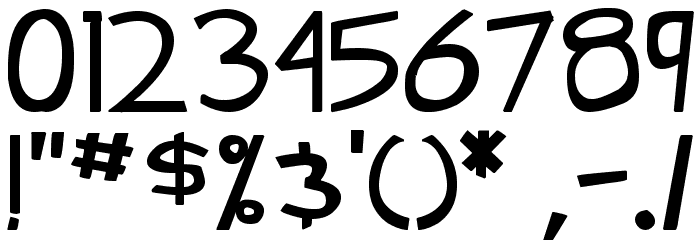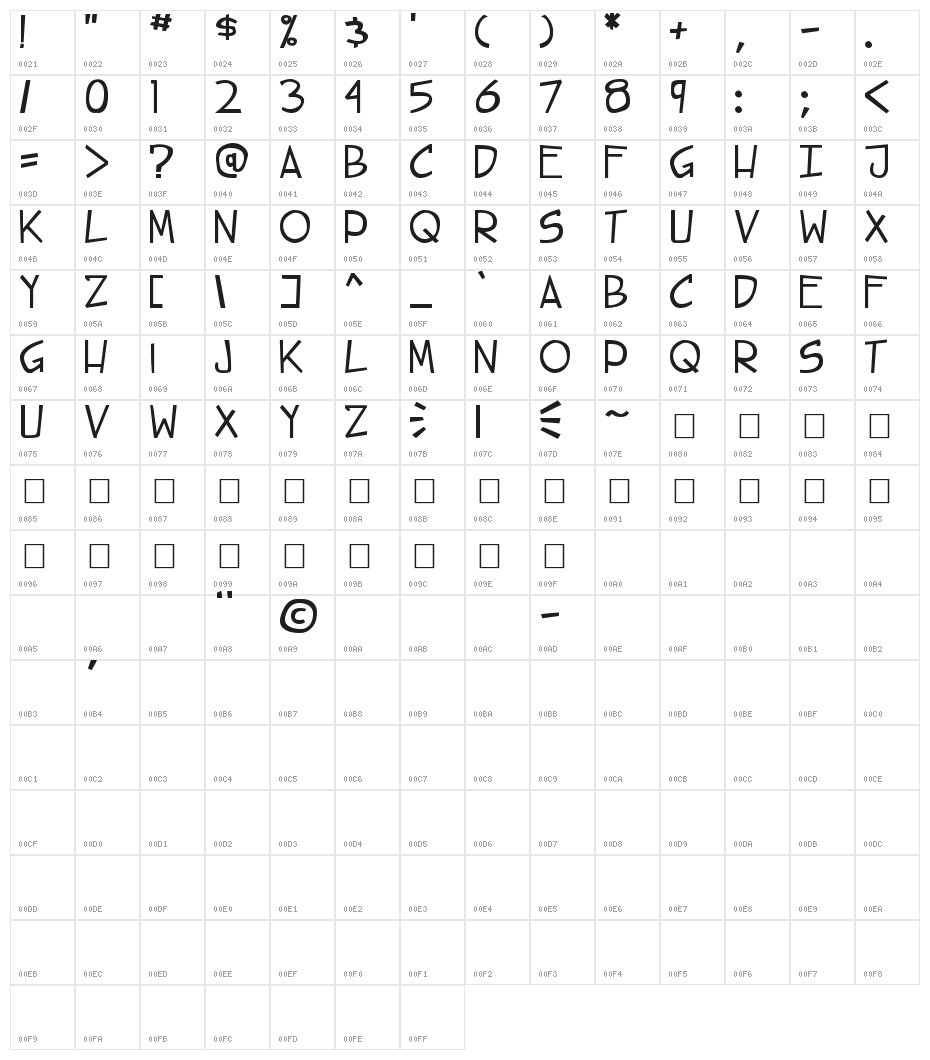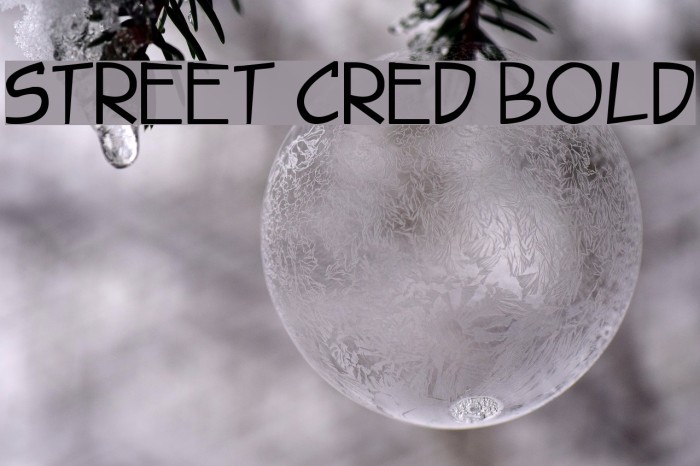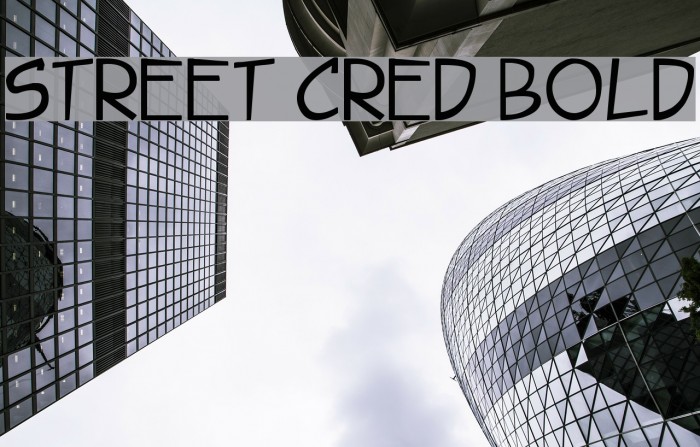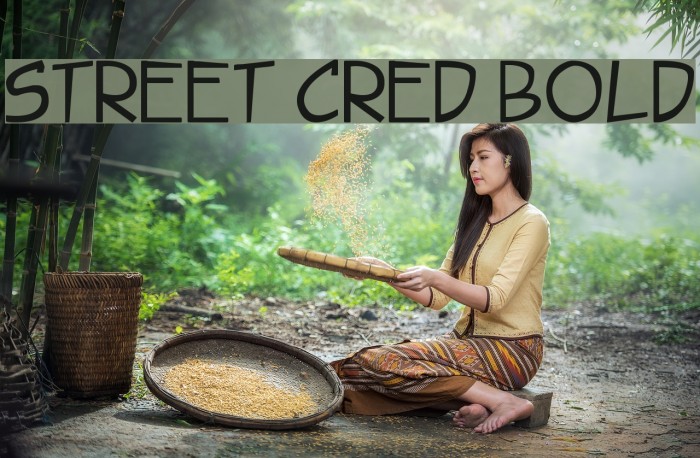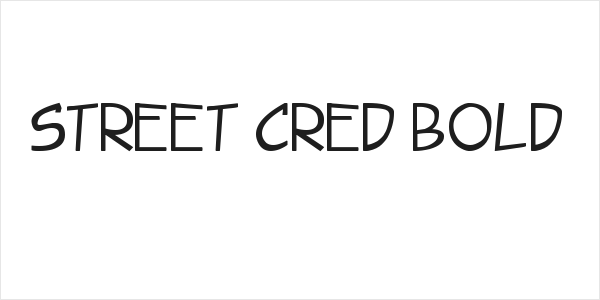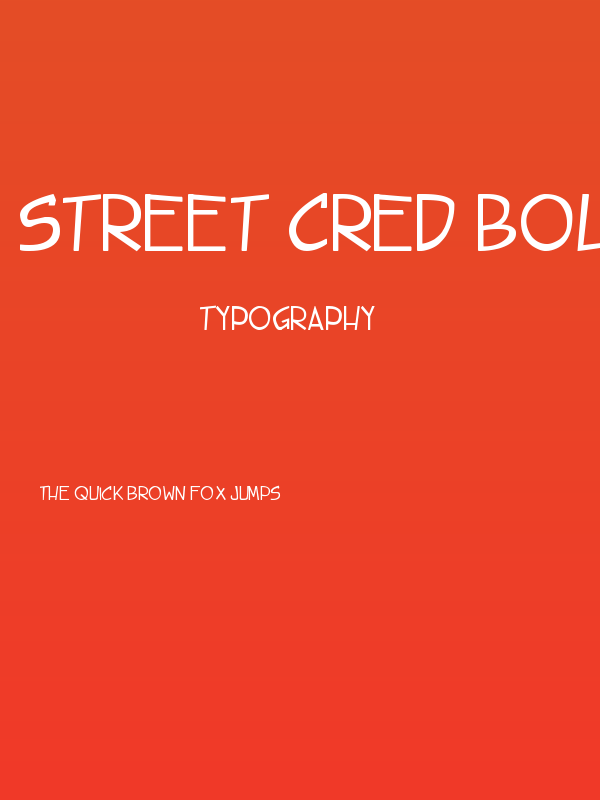
Street Cred Bold Font
Street Cred Bold Description
This font features a bold and playful style with a hand-drawn appearance. The characters are slightly irregular, giving it a casual and informal feel. The uppercase letters are tall and narrow, while the lowercase letters maintain a consistent height, adding to the quirky aesthetic. The numbers are bold and rounded, complementing the overall style. Special characters are creatively designed, enhancing the font's unique personality. This font is ideal for projects that require a fun and lively touch.
| Overall Style | Playful, Casual, Hand-drawn |
| Proposed Projects | Perfect for children's books, comic strips, playful branding, and creative posters. |